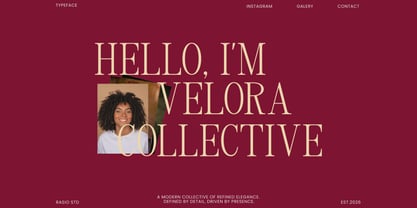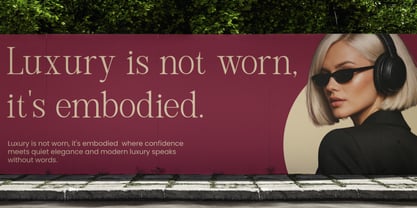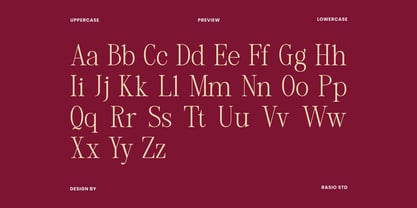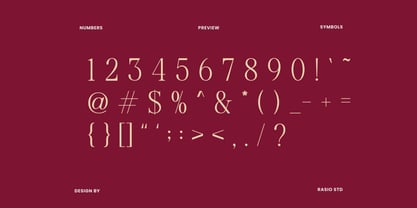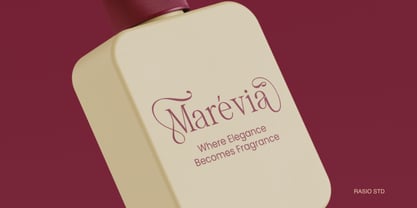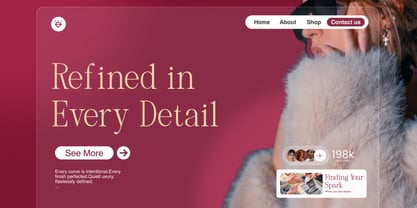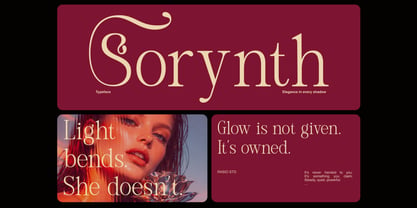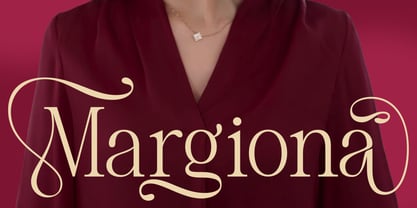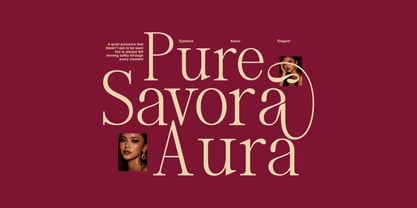
Margiona
The Margiona Font Family was designed by Fajar Indra and published by Rasio Studio. Margiona contains 1 styles. More about this family
Margiona Elegant Decorative Serif is a refined luxury typeface featuring graceful serif construction with delicate ornamental swashes and sophisticated letter proportions. The design blends classic editorial elegance with modern decorative styling, creating a timeless visual presence for premium branding and artistic typography. Includes uppercase, lowercase, numerals, and punctuation in fully editable font files suitable for print and digital projects. Relevance and Use Cases is perfect for luxury branding, fashion editorials, beauty packaging, wedding stationery, boutique logos, premium product labels, magazine headlines, and elegant social media designs requiring refined and decorative serif typography.